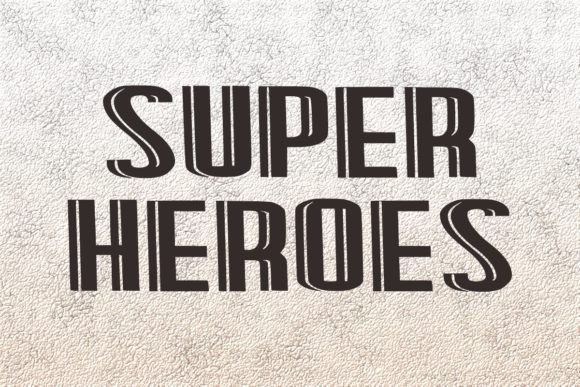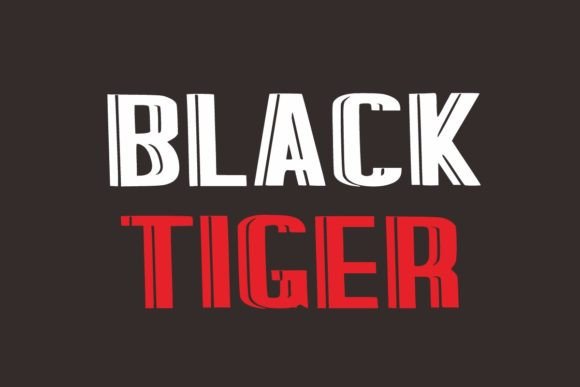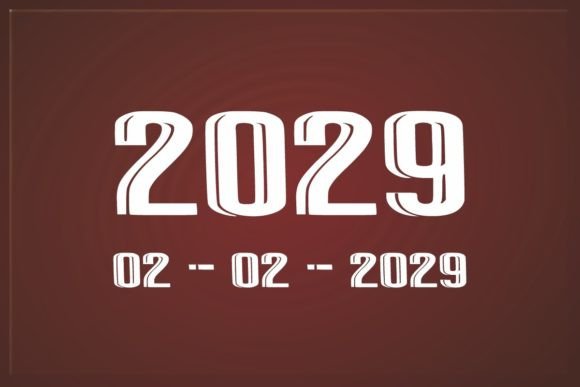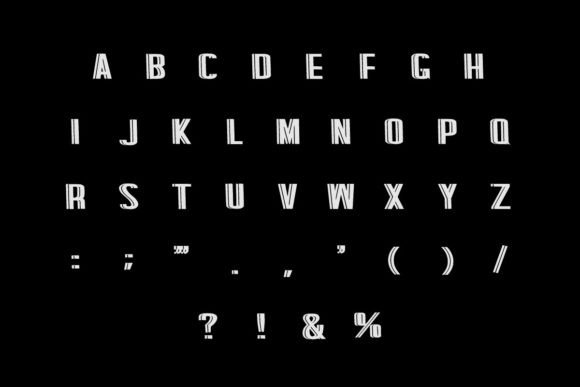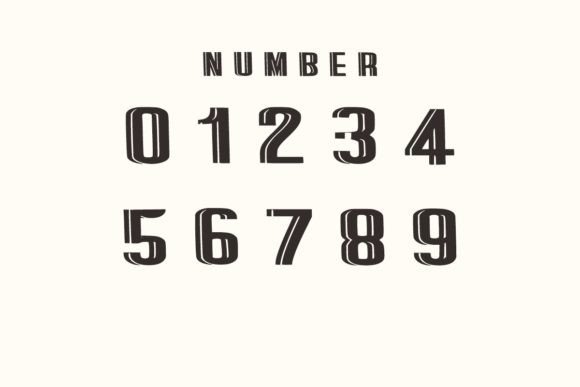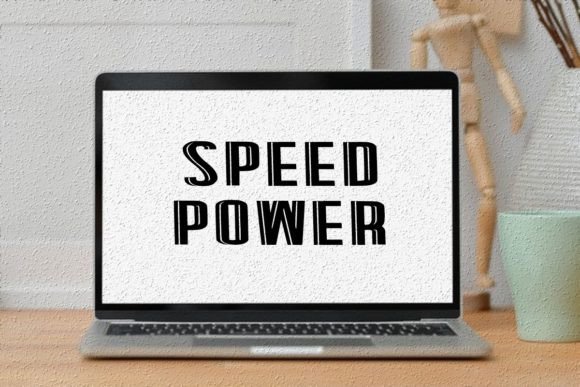
Introduction to Marvil Lines Font Font
Fonts play a crucial role in design, and the Marvil Lines Font font is a typeface that brings both character and versatility to any project. Whether you’re working on a branding project, a website, or a print design, the Marvil Lines Font font offers a unique style that can elevate your work.
Marvil Lines is a modern, eye-catching, and bold-looking display font.
It features a dynamic effect and a unique charm It is perfect for headlines, sporting events, automotive posters, school posters, text effects, templates, logos, or monogrammed designs.
Key Features of Marvil Lines Font Font
Why Choose Marvil Lines Font Font?
The Marvil Lines Font font is more than just a typeface – it’s a design tool that helps you communicate your message with style and clarity. Its unique character set and versatile design make it suitable for a wide range of applications, from elegant invitations to bold headlines.
With its carefully crafted letterforms and balanced proportions, the Marvil Lines Font font ensures readability and visual appeal across all mediums.
What makes Marvil Lines Font font special?
The Marvil Lines Font font stands out with its unique design, exceptional readability, and versatility across various design applications.